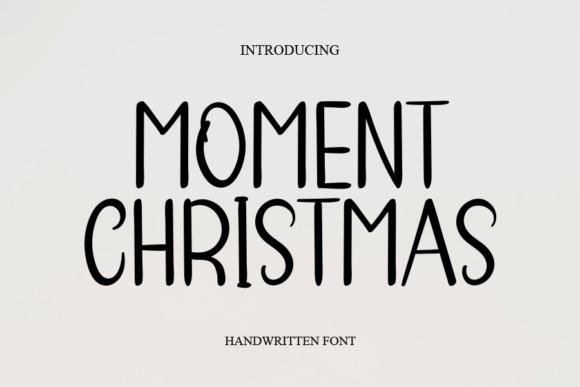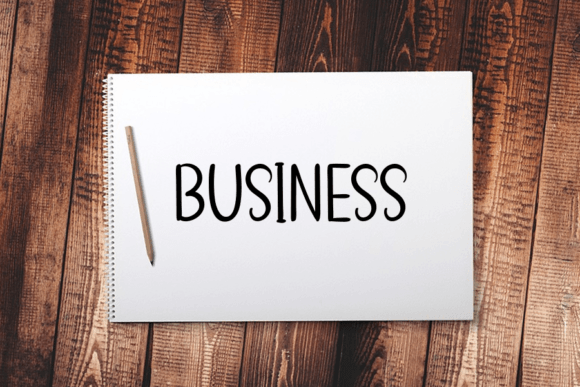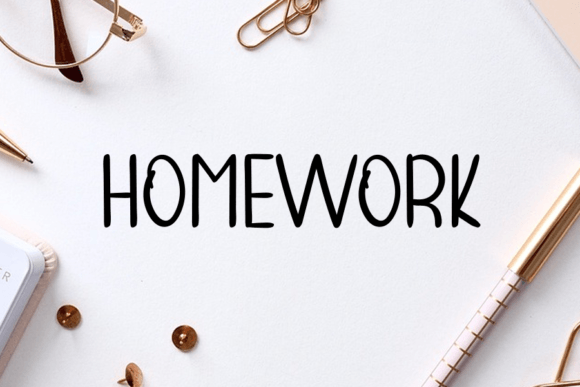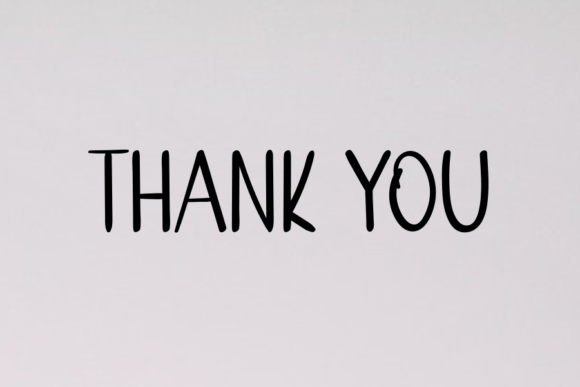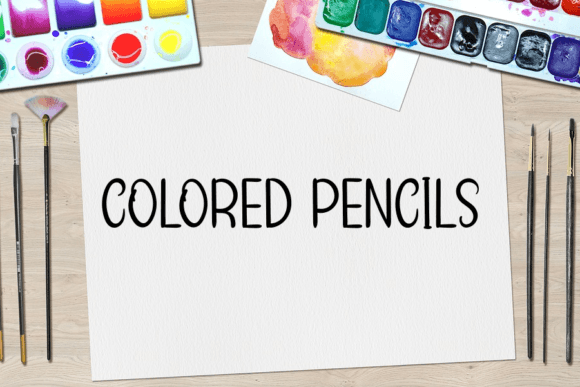
Moment Christmas Font
Moment Christmas Font Download – Fresh Natural Handwritten Script
The Moment Christmas Font download is a fresh handwritten script designed to add charm and creativity to your projects. With its natural strokes and smooth flow, this typeface works beautifully for holiday designs as well as everyday creations. Because it blends elegance with playfulness, it is a must-have font for personal and professional projects.
Fresh and Natural Handwritten Style
Moment Christmas features flowing lines and balanced letters. As a result, your text looks warm and approachable. In addition, its natural handwritten quality makes it feel authentic and versatile across many design uses.
Perfect for Holiday Invitations and Cards
Christmas cards, party invitations, and seasonal greetings shine with this font. It creates a festive yet personal tone, making your messages more meaningful. Therefore, it is an excellent option for stationery projects.
Moment Christmas Font Download for Posters and Logos
The Moment Christmas Font download also works perfectly for posters, logos, and branding. Its clean strokes and festive energy give businesses and projects a professional yet creative identity.
Versatility in Creative Projects
From social media graphics to handmade crafts, this font adapts to many different platforms. In addition, its timeless look ensures it remains relevant for both seasonal and non-seasonal designs.
Readability and Style Combined
Some decorative fonts may be stylish but difficult to read. However, Moment Christmas balances clarity with charm. As a result, it is effective for bold headlines and smaller design details.
Why Add This Script Typeface to Your Collection?
The Moment ChristmasFont download is fresh, versatile, and easy to use. In other words, it is suitable for everything from holiday invitations to professional branding. Finally, it is a handwritten script that adds personality and warmth to every creative project.